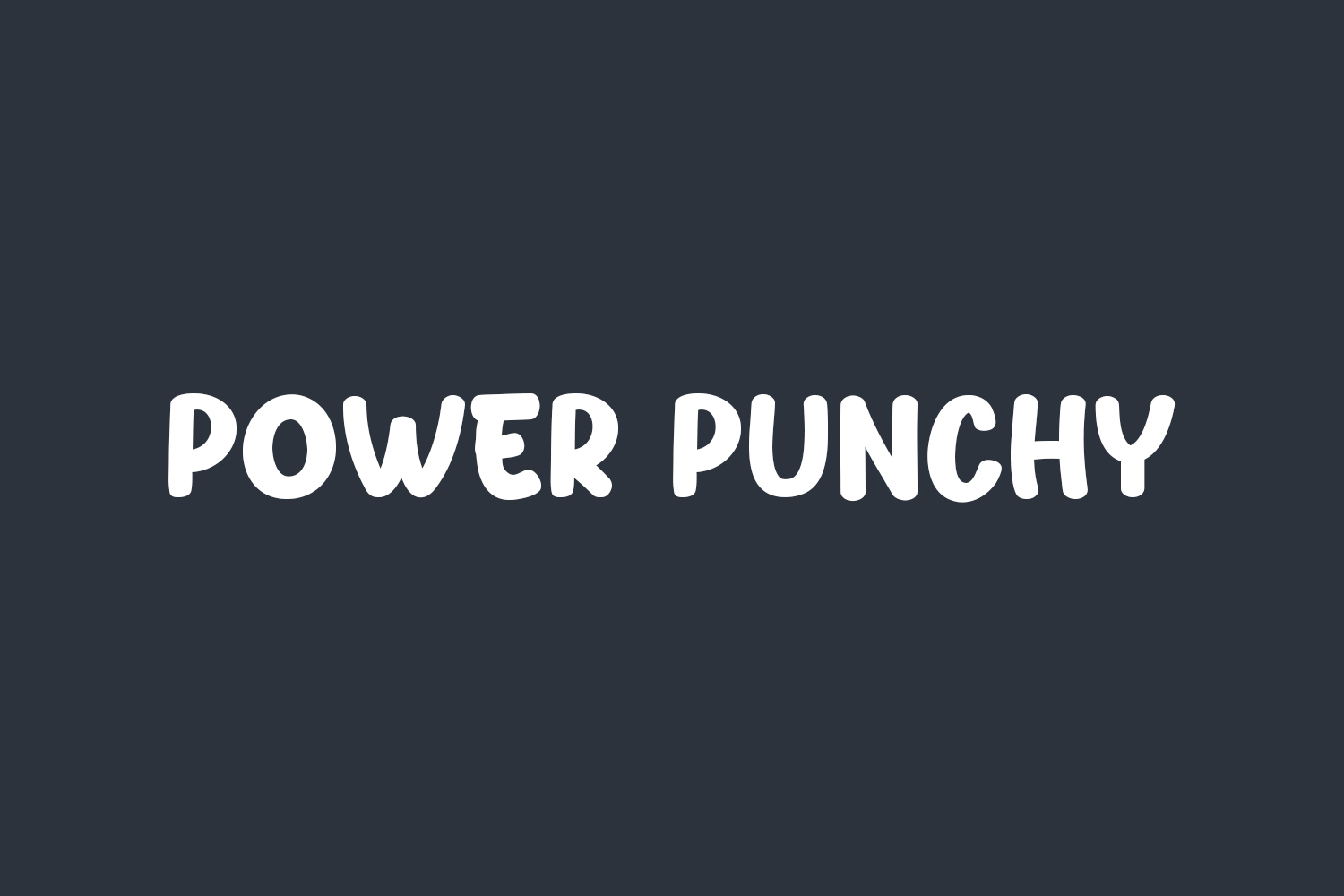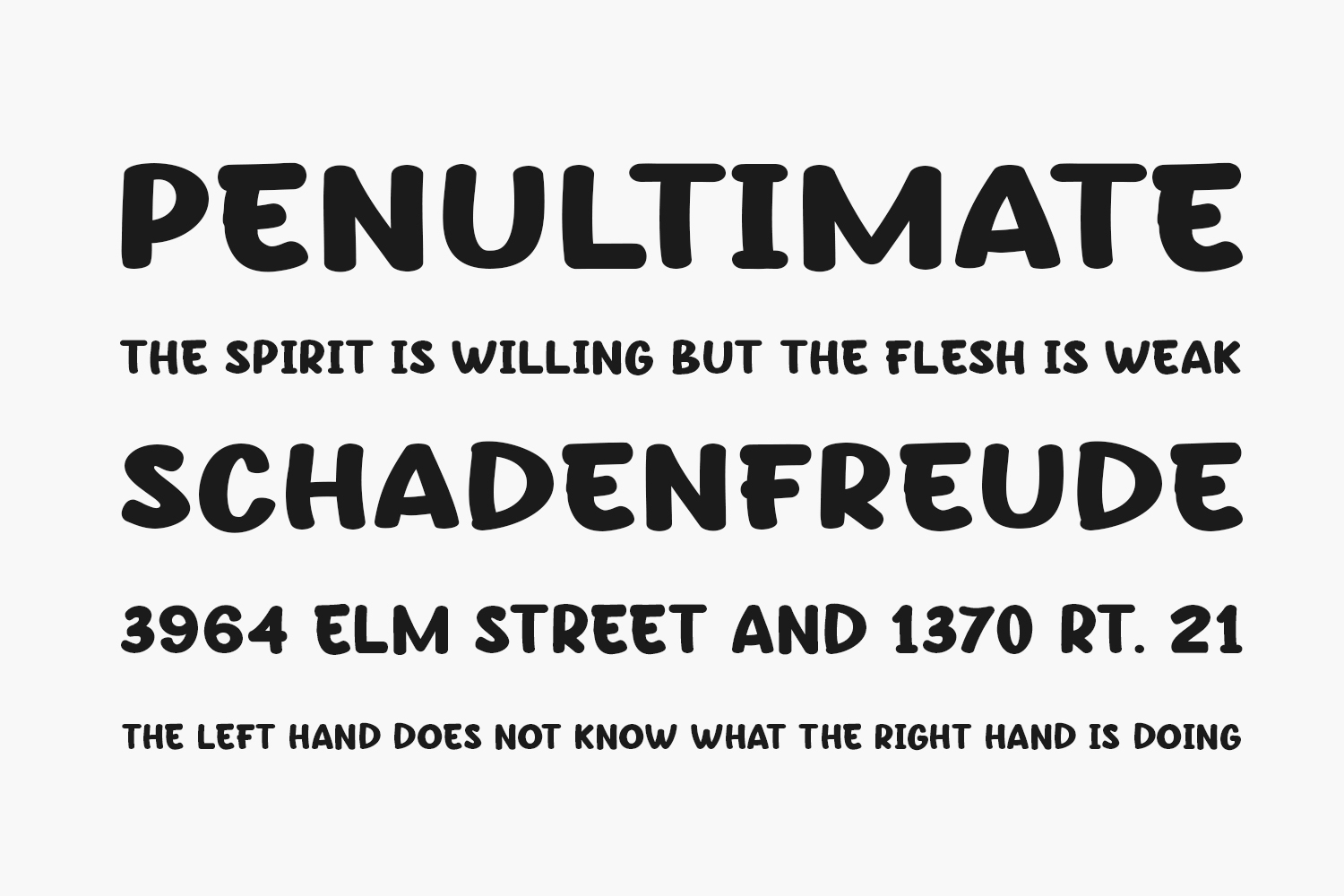
Power Punchy – Free Bold Cartoon Display Font with Energetic Vibes
Power Punchy is a vibrant cartoon-style display font designed by MJType, bursting with playful energy and bold charm. With chunky letterforms, rounded edges, and an animated feel, this font is perfect for posters, banners, kids’ products, event flyers, and fun branding. Available in OTF format (~205 KB), Power Punchy is free for personal use. A commercial license can be obtained directly from the designer. Bring a cheerful punch to your designs with this dynamic and friendly typeface!
Why Choose Power Punchy?
- Cartoon Energy: Thick, rounded strokes and lively shapes make it ideal for fun, animated designs.
- High Visibility: Bold weight and large x-height ensure standout performance in display sizes.
- Friendly Tone: Soft edges and playful structure add approachability and warmth.
Where to Use Power Punchy?
- Kids’ Packaging & Toys: Bright and fun for products, games, and educational tools.
- Posters & Flyers: Great for school events, community fairs, and party promotions.
- Logos & Branding: Makes a bold statement for playful or child-centered brands.
- Social Media Graphics: Eye-catching in animated headers, story posts, and YouTube thumbnails.
- Merch & Apparel: Fun prints and T-shirt designs that pop with bold lettering.
Design Tips with Power Punchy
Use at large sizes (36pt+) to show off its playful character. Pair with a minimalist sans-serif like Georgea or Cutive to let it shine. Bright, contrasting color palettes enhance its cheerfulness—think primary hues or vibrant tones. Consider adding simple outlines or drop shadows to enhance its comic feel.